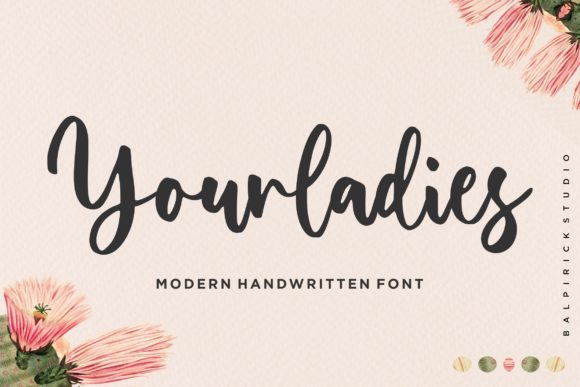
Designing with Yourladies: A Sweet Script for Branding
I remember staring at a blank canvas last Tuesday, tasked with creating a visual identity for a small, boutique skincare line that prides itself on handmade, organic ingredients. The client wanted something that felt personal, intimate, and undeniably feminine without crossing the line into cliché. That's when I pulled Yourladies from my library of Fonts. As a designer, finding the right Script Handwritten typeface can make or break a project, and Yourladies immediately stood out because it is a sweet and delicate handwritten font that brings a dainty and joyful energy to the screen. This isn't just a file on a hard drive; it's a tool that helped me translate a brand's soul into a visual language, proving that the right typography can do the heavy lifting in establishing an emotional connection.
Using Yourladies for Wedding Invitations and Romantic Branding
When I first typed out the brand name using Yourladies, the transformation was instant. Because Yourladies is a sweet and delicate handwritten font, it naturally lends itself to projects requiring a romantic, personalized touch, such as wedding invitations or high-end greeting cards. In the context of this skincare brand, I needed a logo that looked like it could have been signed by the founder herself. The strokes of this Script Handwritten style are fluid and organic, avoiding the rigid perfection that often makes digital fonts feel cold. For designers working on brand identity projects, this specific mood is invaluable. It suggests care, attention to detail, and a human hand behind the product. Whether you are designing a save-the-date card or a luxury perfume label, the inherent joy in the letterforms of Yourladies helps elevate the perceived value of the physical item.
Creating Emotional Connections with Dainty Typography
The personality of a typeface dictates how an audience feels before they even read the words. With Yourladies, the vibe is unmistakably warm and inviting. When I placed this font on the initial mockups for the skincare packaging, the client noted that it felt "gentle" and "approachable." This is the power of selecting the right Fonts for your commercial font needs. A dainty and joyful script like this works exceptionally well for businesses that want to appear boutique and exclusive rather than mass-produced. It creates a sense of intimacy, which is crucial for industries like wellness, bridal services, and artisanal food. By choosing a typeface that embodies these traits, you aren't just picking letters; you are curating an experience. The delicate nature of the strokes ensures that the design doesn't shout, but rather whispers confidence and elegance to the viewer.
Applying Yourladies to Packaging Design and Product Labels
Moving from the logo to the broader application, I tested Yourladies on various product labels and packaging elements. One of the challenges with Script Handwritten styles is ensuring they remain legible at smaller sizes, but the open counters and distinct character shapes in Yourladies hold up surprisingly well. Since this font is ideal for writing wedding invitations, cards, or any other design that may need a romantic, personalized touch, it translates beautifully to small-scale print work like jar lids, box seals, and thank-you notes included in shipments. In my workflow, I always recommend testing your chosen typeface on actual mockups to see how the ink might spread or how the resolution affects the fine lines. For this project, we used Yourladies primarily as a display font for the product names, pairing it with a clean, minimal sans serif for the ingredient lists to maintain a clear visual hierarchy.
Enhancing Visual Hierarchy in Creative Studio Projects
A common mistake in logo design and packaging is trying to make the script font do too much work. In this real-world scenario, I restricted the use of Yourladies to headlines and key branding moments. This approach allows the dainty and joyful characteristics of the font to shine without overwhelming the viewer. When you are building a brand identity, consistency is key. Using Yourladies across business cards, social media graphics, and website headers creates a cohesive thread that ties all marketing materials together. The font acts as the "voice" of the brand, while supporting modern typography handles the informational heavy lifting. This balance ensures professionalism while retaining that essential human touch. If you are a freelancer or part of a creative studio, remember that the best design assets are those that serve a specific function within the larger system, and Yourladies excels as an accent piece that draws the eye and warms the heart.
Pairing Yourladies with Modern Fonts for Web and Social Media
No font exists in a vacuum, and part of my process involves finding the perfect partner for the primary script. For the skincare brand's website and Instagram presence, I paired Yourladies with a geometric sans serif. This combination creates a striking contrast between the organic, flowing lines of the handwritten font and the structured stability of the sans serif. This technique is standard in web design and editorial design to ensure readability while maintaining style. Because Yourladies is a sweet and delicate handwritten font, it pairs wonderfully with heavier, bolder typefaces that ground the design. On social media graphics, I used Yourladies for pull quotes and promotional headers, knowing that its romantic, personalized touch would stop the scroll. The key here is whitespace; giving this Script Handwritten style room to breathe allows its delicate features to be appreciated fully, whether on a mobile screen or a desktop monitor.
Finalizing the Brand System with Commercial Fonts
As the project moved toward final delivery, the versatility of Yourladies became even more apparent. We utilized it for everything from the hero section of the homepage to the embossed logo on the product boxes. For any designer considering this for their next branding project, it is important to verify the licensing terms to ensure it fits your commercial needs, especially if the client plans to sell merchandise or digital templates. The joy and daintiness embedded in these Fonts provide a competitive edge in crowded markets where consumers crave authenticity. By the time we presented the final brand board, the typography had done its job: it told a story of care, craftsmanship, and romance. Whether you are designing for a local restaurant, a handmade shop, or a wedding planner, Yourladies offers that elusive quality of being both professional and deeply personal. It reminds us that in a world of digital perfection, there is still immense power in a sweet, delicate, and human touch.